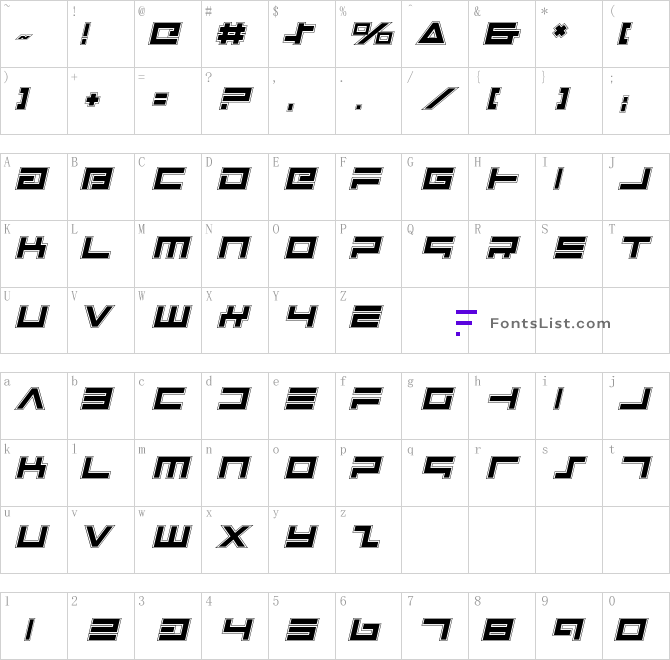
- Font Name:Avenger College Italic
Avenger-College-Italic.ttf is a very beautiful artistic font, Avenger-College-Italic.ttf is widely used in the design and printing of various books and pictures,Avenger-College-Italic.ttf has a strong visual impact,Avenger-College-Italic.ttf is a commonly used font in newspapers, magazines and books, and is used in posters, e-commerce Poster design, store design, logo design, font design and other fields.Avenger-College-Italic.